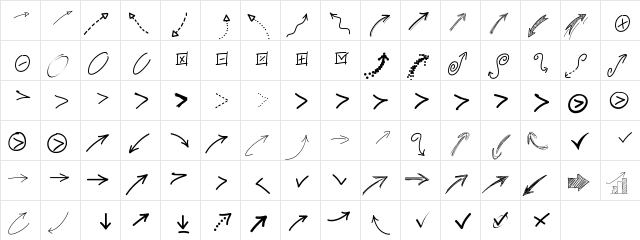
PWFreeArrows Medium
Design Context for PWFreeArrows Typeface
PWFreeArrows takes a measured approach to typography — its balanced proportions and neutral character make it a reliable workhorse for both digital and print work.